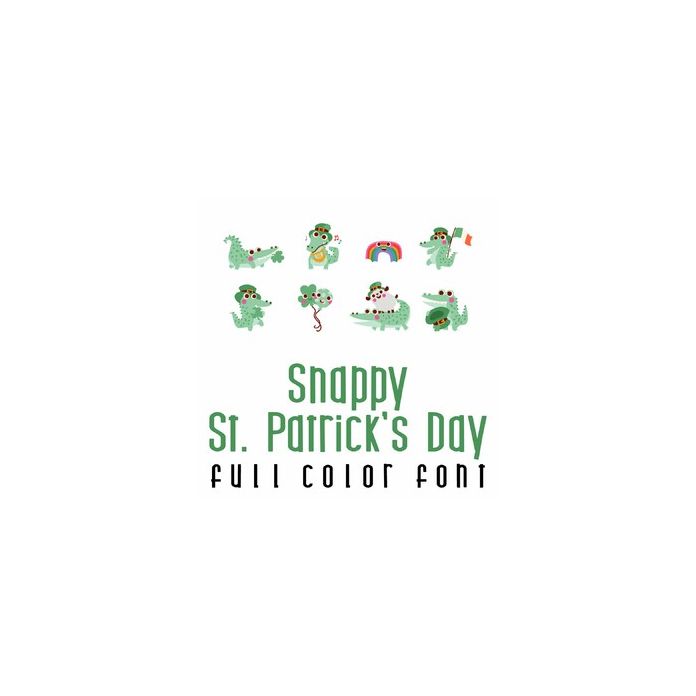
This adorable full-color doodlebat font features 26 adorable alligators ready for St. Patrick's Day. Perfect for cards, crafts, gifts, decor, scrapbook pages, planner stickers, and more!